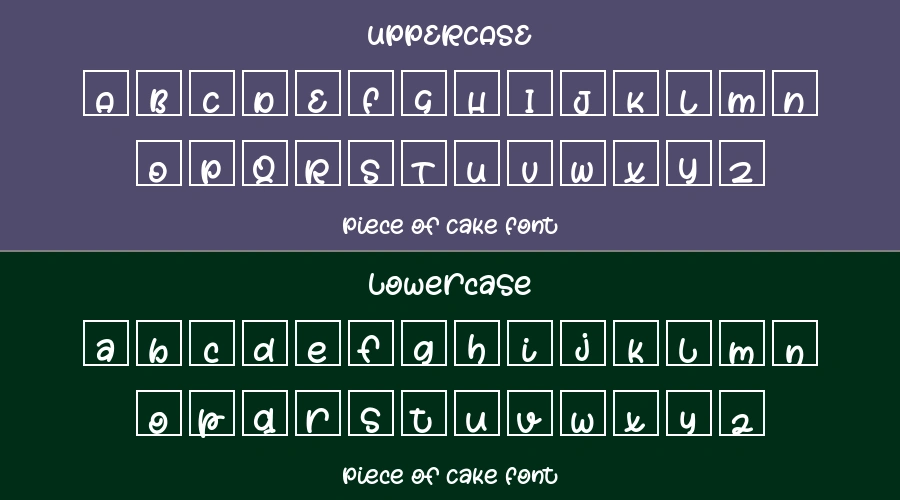
About Piece of Cake Font
Piece of Cake Font represents a sophisticated approach to type design, balancing rounded corners with textual warmth. Perfect for merchandise graphics, this font family showcases impressive reliability and system compatibility throughout its character set. Designers appreciate its versatility and reliability.
Designers will appreciate nuanced touches including rounded apexes and traditional styling, adding sophistication to any project. These features become apparent in retail environments, where math typesetting matters most. The careful treatment of spur details and character ensures optimal performance.